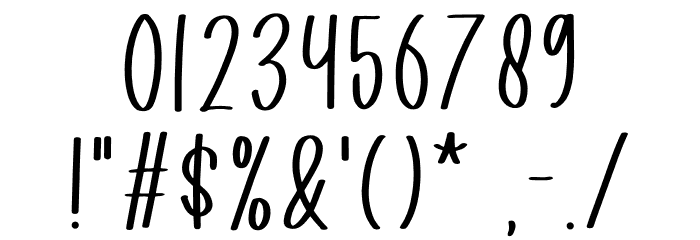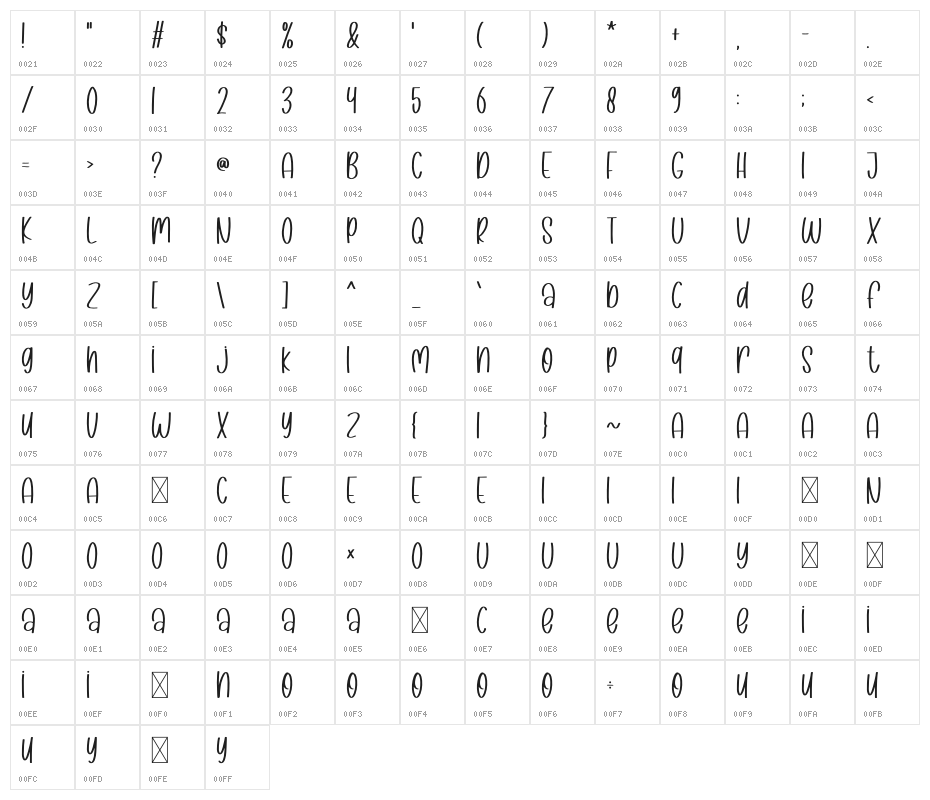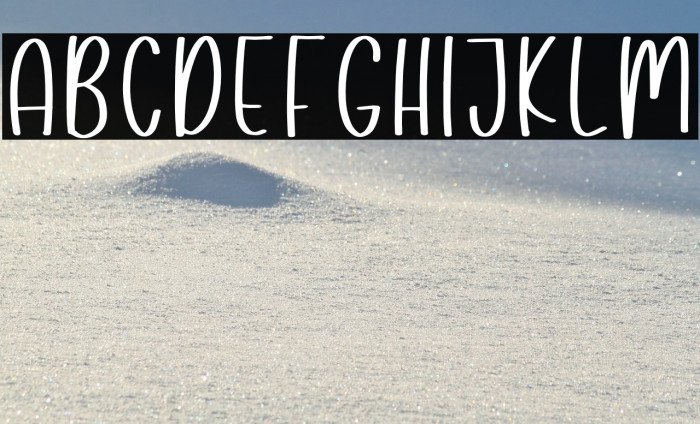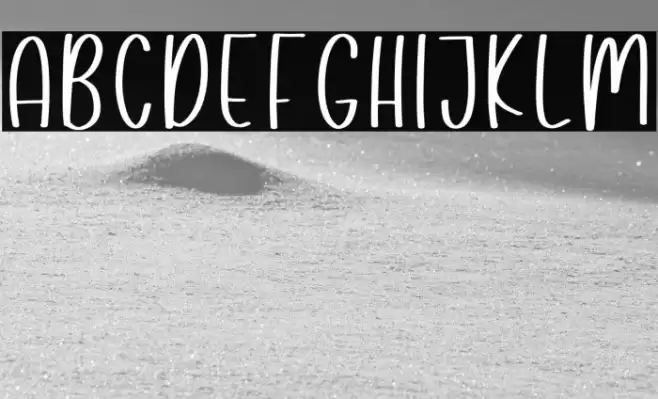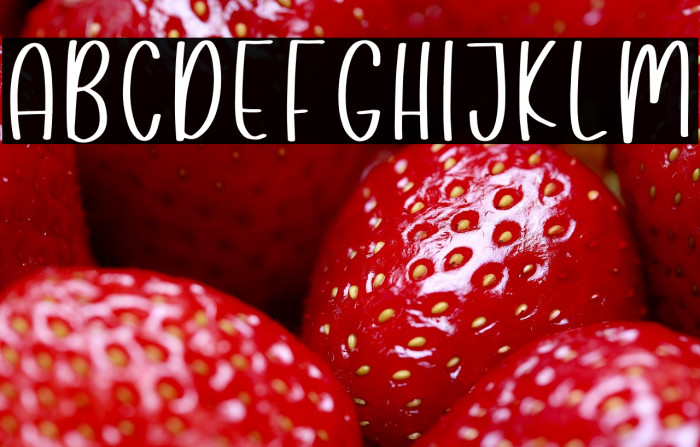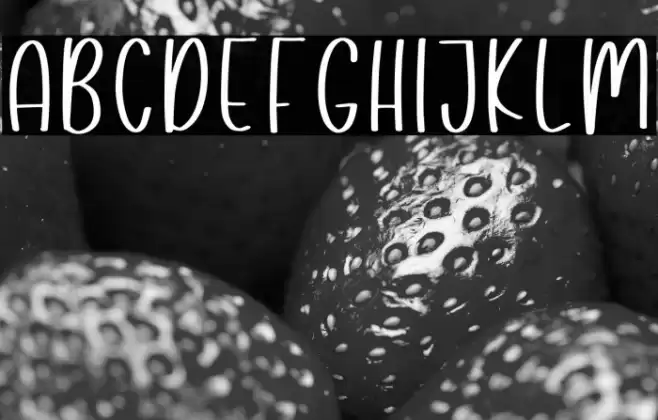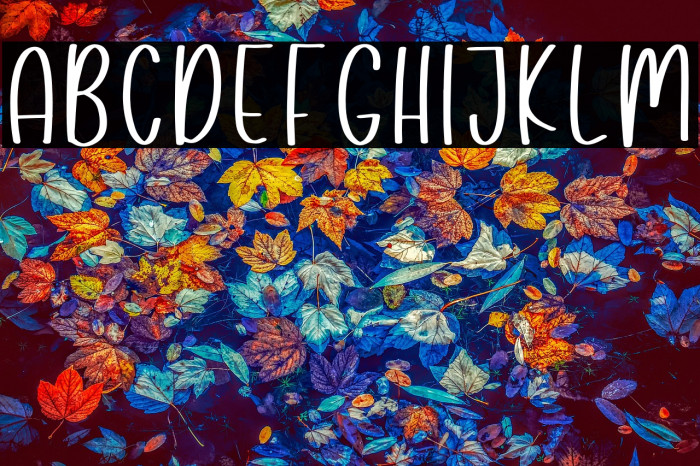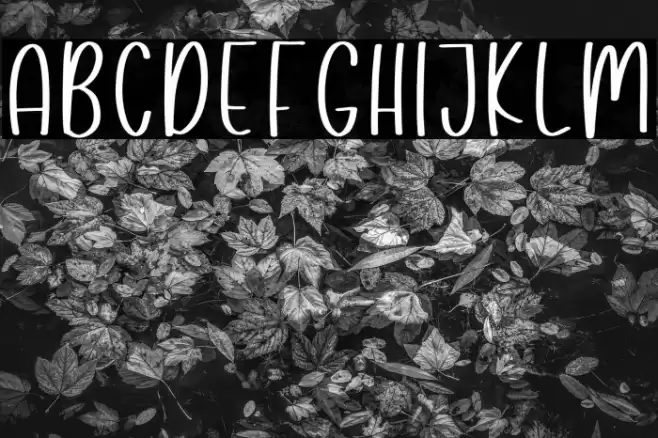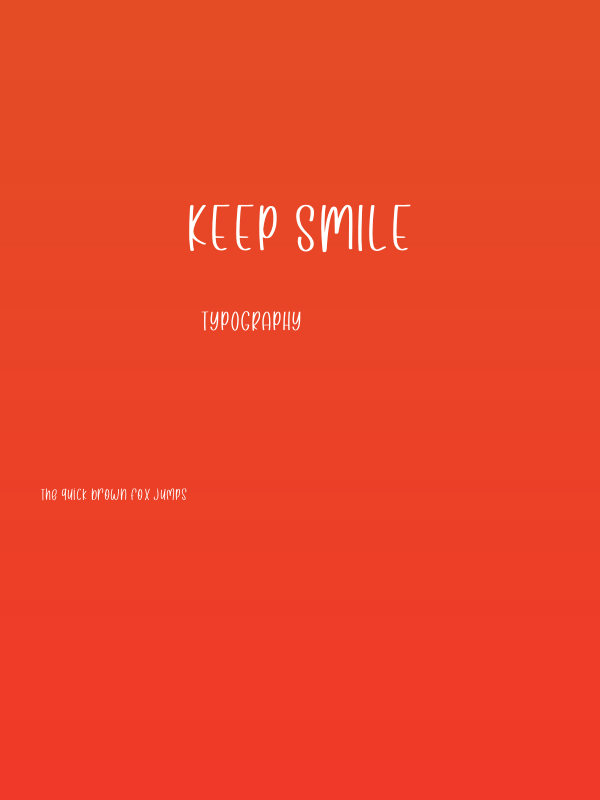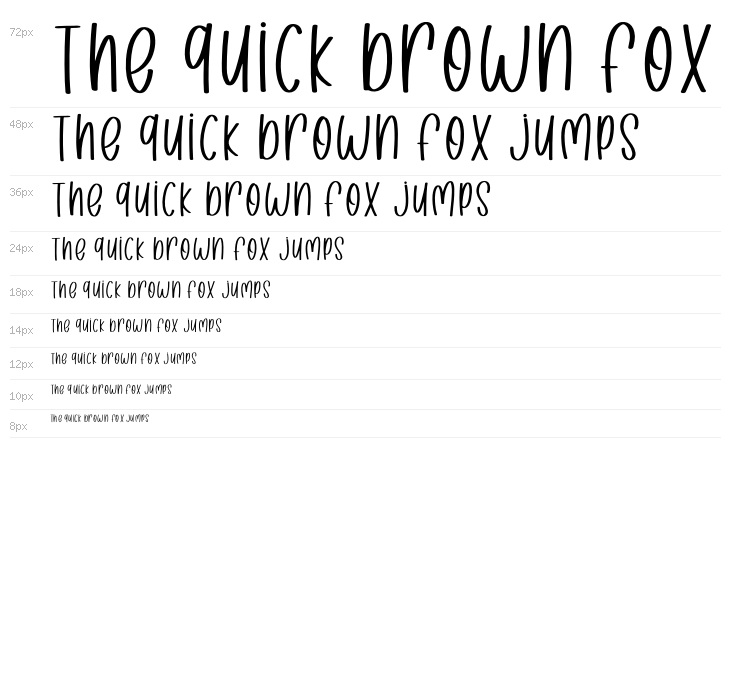
Keep Smile Font
This font features a playful and casual handwritten style, characterized by its smooth, flowing curves and slightly irregular letterforms that give it a friendly and approachable appearance. The uppercase and lowercase letters maintain a consistent height, creating a harmonious look. The numbers and special characters are designed to match the overall style, ensuring a cohesive appearance across all text elements. The strokes are moderately thick, providing good readability while maintaining a whimsical touch. This font is ideal for projects that require a personal and informal feel.
| Proposed Projects | Ideal for greeting cards, invitations, personal blogs, and playful branding projects. |